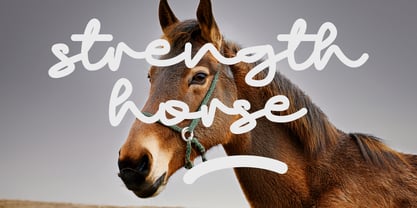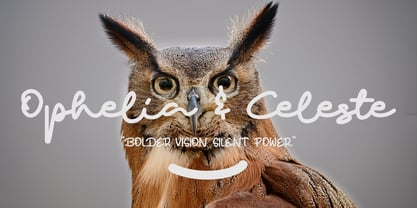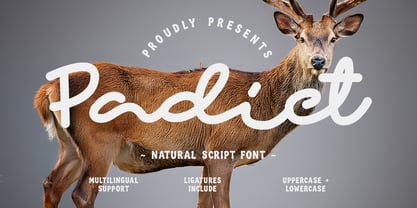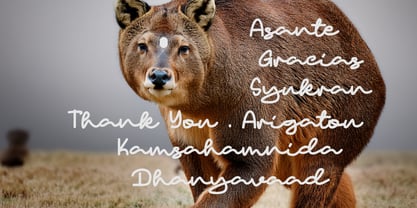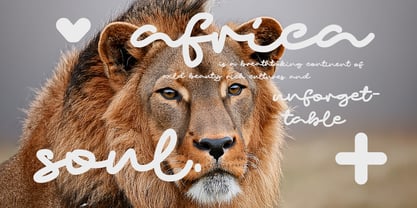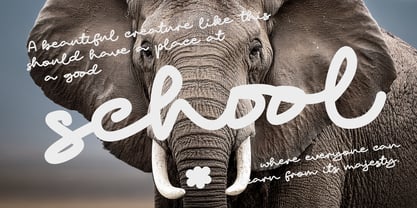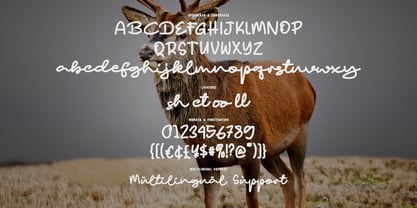
Padict
por Maulana Creative
La familia tipográfica Padict fue diseñada por Gilang Maulana y publicada por Maulana Creative. Padict contiene 1 estilos. Más información sobre esta familia
Padict is a smooth and casual script font designed to bring a relaxed, organic feel to creative projects. Featuring natural handwritten strokes, distinct ligatures, and complete uppercase and lowercase character sets, this typeface delivers an authentic human touch. Its smooth flow and well-crafted letterforms make it an ideal choice for logos, product packaging, branding identity, social media graphics, and decorative displays.
Equipped with multilingual support, Padict offers high versatility across various international design applications. The font seamlessly balances a modern aesthetic with an effortless, handcrafted charm, ensuring strong visual appeal in headlines, quotes, posters, and digital media layouts.
Diseñadores: Gilang Maulana
Fundición: Maulana Creative